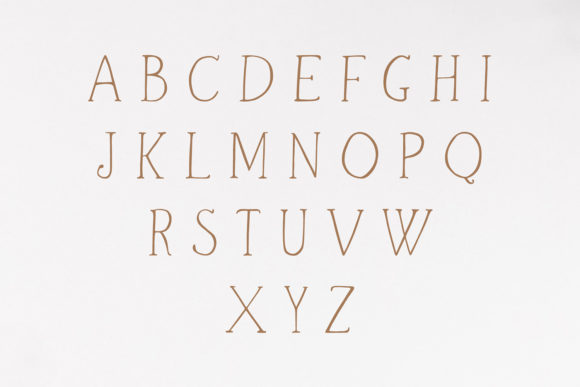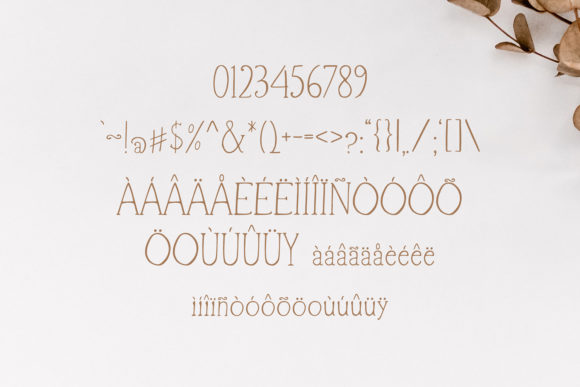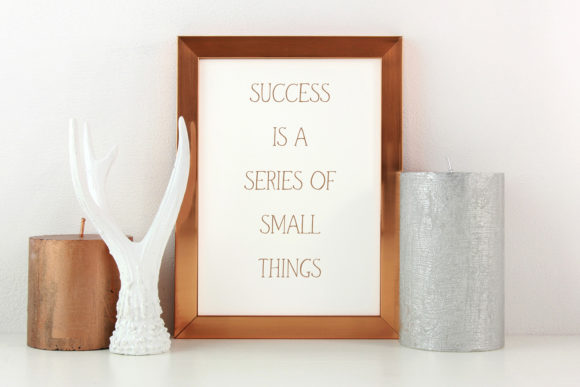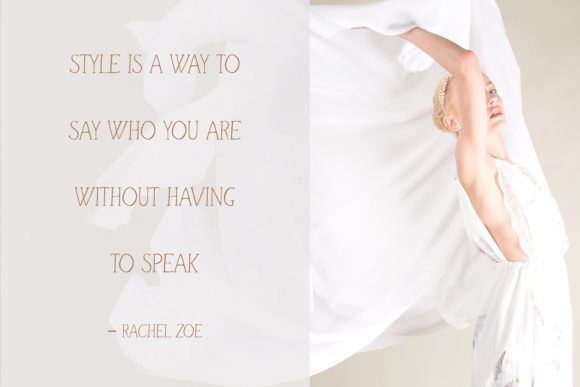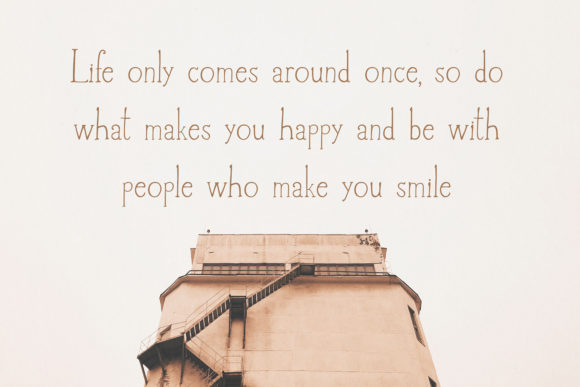
Adeen Font: Elevate Your Designs with a Touch of Whimsy and Modern Elegance
In the world of typography, fonts play a pivotal role in transforming ordinary designs into extraordinary ones. Among the myriad of fonts available, the Adeen Font stands out for its unique blend of modern elegance and whimsical charm. This comprehensive guide delves into the characteristics, uses, and benefits of the Adeen Font, making it a must-have for designers and crafters looking to infuse their projects with a dash of magic.
What is Adeen Font?
Adeen is a thin lettered and delicate handwritten font, crafted to bring a touch of sophistication and playfulness to any design. Its modern yet whimsical style makes it an ideal choice for projects that demand a unique aesthetic. Whether you’re working on a branding project, a wedding invitation, or a digital platform, Adeen Font promises to immerse your designs into a magical world, setting them apart from the rest.
Key Features of Adeen Font
- Thin and Delicate: Adeen’s letters are characterized by their thin and delicate strokes, giving it an elegant and refined appearance.
- Handwritten Style: The font boasts a handwritten quality, adding a personal and intimate feel to your designs.
- Modern yet Whimsical: Adeen strikes the perfect balance between modern simplicity and whimsical charm, making it versatile for various design applications.
- Magical Aesthetic: Its unique style has the power to transport your designs into a magical realm, captivating your audience’s imagination.
Applications of Adeen Font
The versatility of Adeen Font makes it suitable for a wide range of design projects. Here are some popular applications:
- Branding and Logos: Use Adeen Font to create elegant and memorable brand identities that stand out.
- Wedding and Event Invitations: Add a touch of whimsy and romance to your wedding invitations, save-the-date cards, and other event materials.
- Digital Platforms: Enhance your website, blog, or social media graphics with Adeen’s modern and delicate aesthetic.
- Packaging and Product Design: Elevate your product packaging with a font that exudes elegance and sophistication.
- Art and Craft Projects: Perfect for crafters, Adeen Font can be used in handmade cards, journals, and other craft projects to add a personal touch.
Benefits of Using Adeen Font
Choosing Adeen Font for your design projects comes with numerous benefits:
- Unique Aesthetic: Stand out from the crowd with a font that offers a distinctive and captivating style.
- Versatility: Its adaptability makes it suitable for a variety of projects, from digital to print.
- Elegance and Whimsy: Achieve the perfect balance of sophistication and playfulness in your designs.
- Easy to Read: Despite its delicate nature, Adeen Font remains clear and readable, making it functional for body text and headings.
How to Use Adeen Font Effectively
To maximize the impact of Adeen Font in your designs, consider the following tips:
- Pair with Complementary Fonts: Combine Adeen Font with bold or serif fonts for contrast and visual interest.
- Adjust Letter Spacing: Experiment with kerning to enhance readability and aesthetic appeal.
- Play with Colors: While Adeen Font shines in black, don’t hesitate to explore other colors that match your design theme.
- Use for Headings and Accents: Adeen Font is perfect for headings, titles, and accents, adding a touch of elegance to your designs.
Adeen Font is a remarkable addition to any designer’s toolkit, offering a unique blend of modern elegance and whimsical charm. Its versatility, readability, and captivating aesthetic make it an excellent choice for a wide range of projects. By incorporating Adeen Font into your designs, you’re not just choosing a font; you’re inviting your audience into a magical world of creativity and imagination. So, why settle for ordinary when you can create something truly enchanting with Adeen Font?